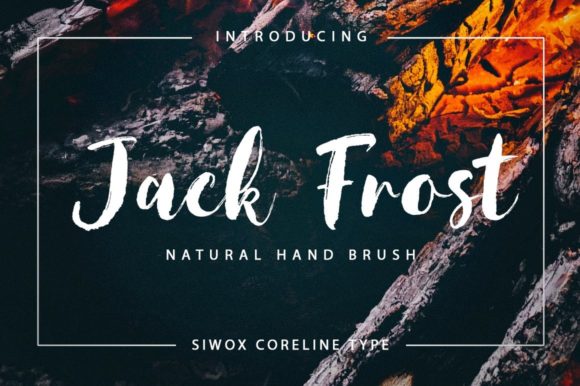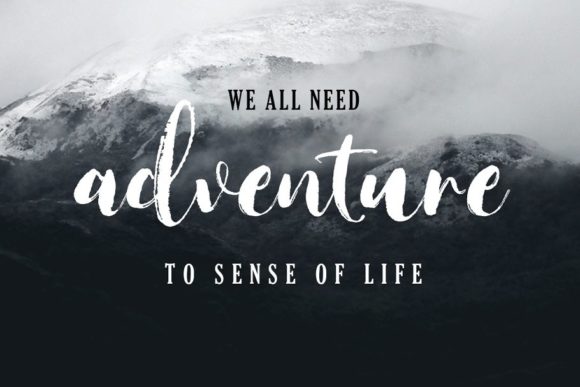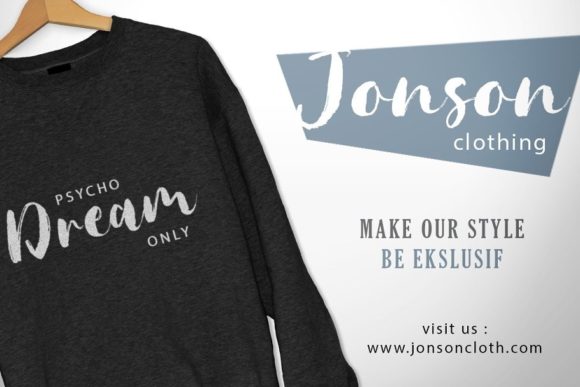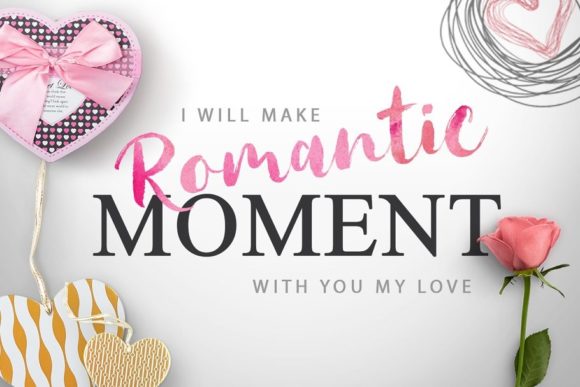
About Jack Frost Font
Jack Frost is a lovely brushed script font featuring charming, playful characters that seem to dance along the baseline. Add this font to your most creative ideas, and notice how it makes them stand out!⨠Jack Frost is PUA encoded which means you can access all of the glyphs and swashes with ease!Â